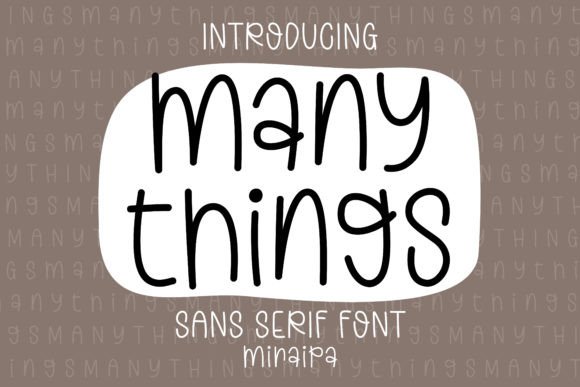
Many Things Font: The Perfect Addition to Your Font Library
Are you looking for a font that can add a touch of whimsy and friendliness to your projects? Look no further than the Many Things font. Designed in a cute and friendly sans serif font style, Many Things is the perfect choice for anyone looking to add a bit of charm and quirkiness to their designs.
What is Many Things Font?
Many Things font is a sans serif font designed with a cute and friendly style in mind. Its charming and whimsical design makes it perfect for a variety of projects, from fun DIY projects to professional designs. The font’s quirky touch adds a unique and playful element that sets it apart from other fonts.
Ideas for Using Many Things Font
Many Things font is versatile and can be used in a variety of projects. Here are some ideas to get you started:
- Easter: Create adorable Easter-themed designs, such as egg decorations, bunny invitations, and spring-themed posters.
- Back to School: Design fun and colorful back to school materials, such as stickers, posters, and worksheets.
- Wedding: Add a touch of whimsy to your wedding designs, such as invitations, decorations, and signage.
- Party Decoration: Create festive party decorations, such as banners, garlands, and DIY party favors.
- Invitations: Design unique and playful invitations for any occasion, from birthday parties to baby showers.
- Fall: Create cozy fall-themed designs, such as leaf decorations, pumpkin carvings, and autumn-themed posters.
- Halloween: Design spooky and fun Halloween-themed designs, such as ghost decorations, pumpkin carvings, and Halloween party invitations.
- Christmas: Create festive Christmas designs, such as holiday cards, decorations, and gift tags.
- Posters: Design eye-catching posters for any occasion, from advertising to awareness campaigns.
- Blogs: Add a touch of personality to your blog with Many Things font.
- Clothing: Design fun and playful clothing, such as t-shirts, hoodies, and hats.
- Child-related Designs: Create adorable designs for kids, such as children’s book illustrations, nursery decor, and kids’ party decorations.
- Greeting Cards: Design unique and personalized greeting cards for any occasion.
- Social Media Posts: Add a touch of whimsy to your social media posts and make them stand out.
Benefits of Using Many Things Font
Many Things font offers several benefits, including:
- Unique and Playful Design: Many Things font has a unique and playful design that sets it apart from other fonts.
- Versatility: The font is versatile and can be used in a variety of projects, from fun DIY projects to professional designs.
- Easy to Read: Many Things font is easy to read, making it perfect for designs that require a clear and concise message.
- Customizable: The font can be customized to fit your specific design needs.
Tips and Tricks for Using Many Things Font
Here are some tips and tricks for using Many Things font:
- Use it in Combination with Other Fonts: Many Things font can be used in combination with other fonts to create a unique and visually appealing design.
- Experiment with Different Sizes and Colors: Experiment with different sizes and colors to find the perfect combination for your design.
- Use it for Headings and Titles: Many Things font is perfect for headings and titles, as it adds a touch of whimsy and friendliness.
- Use it for Body Text: The font can also be used for body text, as it is easy to read and understand.
Many Things font is a versatile and playful font that can add a touch of whimsy and friendliness to your designs. With its unique and customizable design, it’s perfect for a variety of projects, from fun DIY projects to professional designs. Whether you’re designing for Easter, back to school, wedding, party decoration, or any other occasion, Many Things font is the perfect choice. Download it now and bring your designs to life!